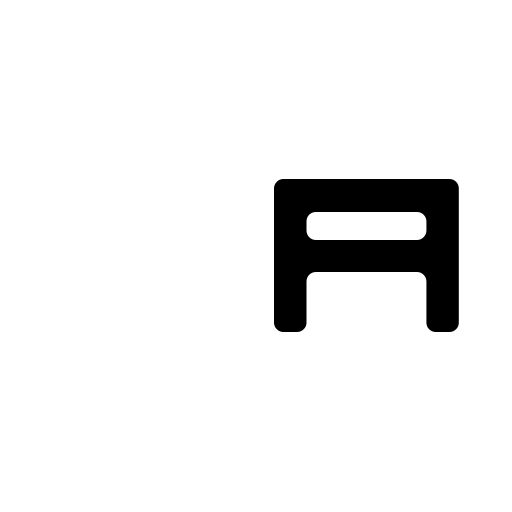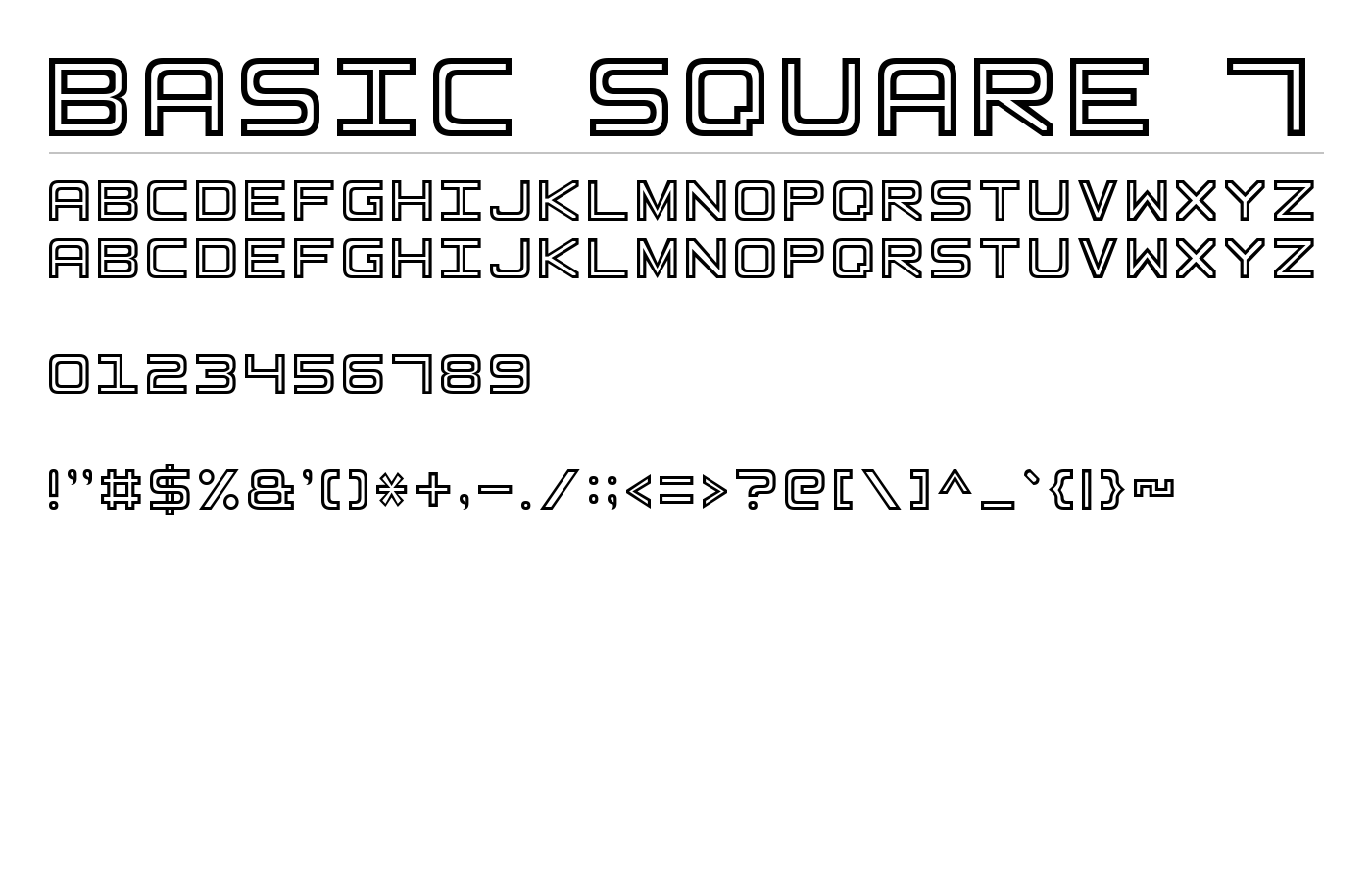
Basic Square 7 is a modern, monospaced sans serif font characterized by its geometric, squared letterforms with consistent stroke widths and a clean, open structure. Its technical and futuristic look, combined with clear readability, makes it ideal for digital displays, tech branding, or coding environments where a precise, minimalist aesthetic is desired. This font works especially well in headlines, logos, and user interfaces where a contemporary, sleek vibe is important.
Basic Square 7 Font
About Basic Square 7 Font
| Font family | Basic Square 7 Font |
| Designer | Sizenko Alexander |